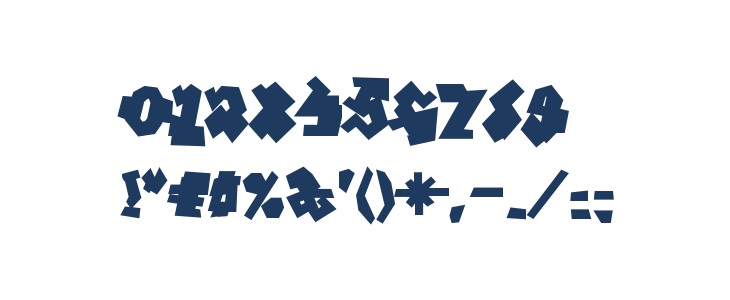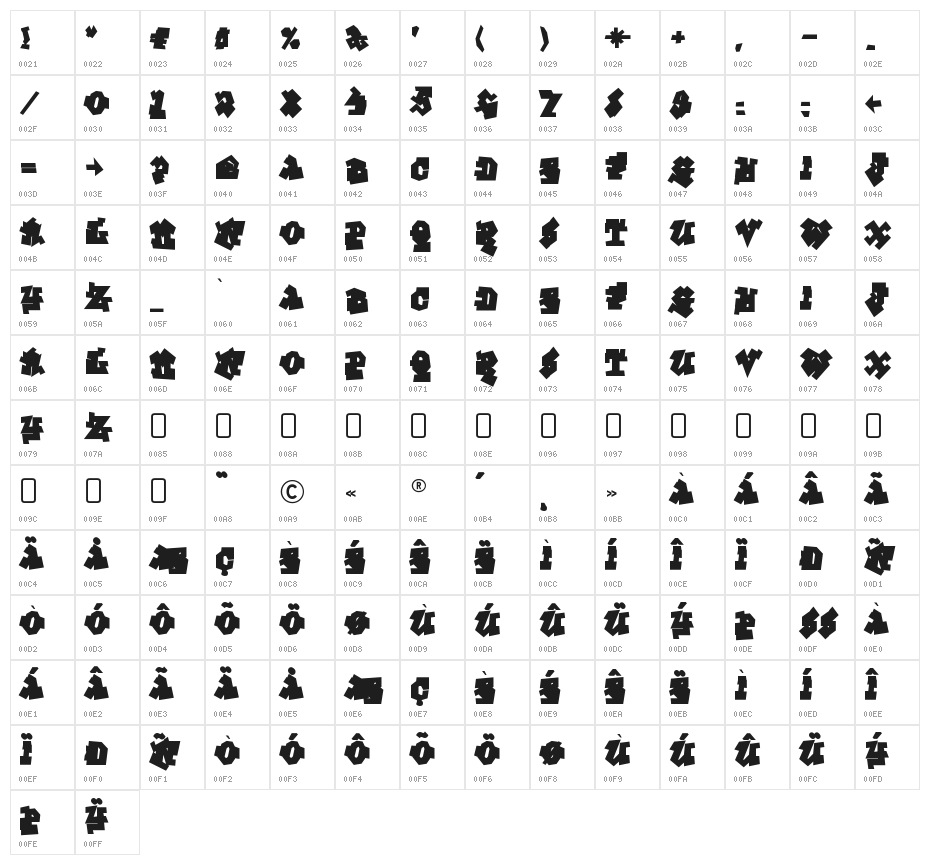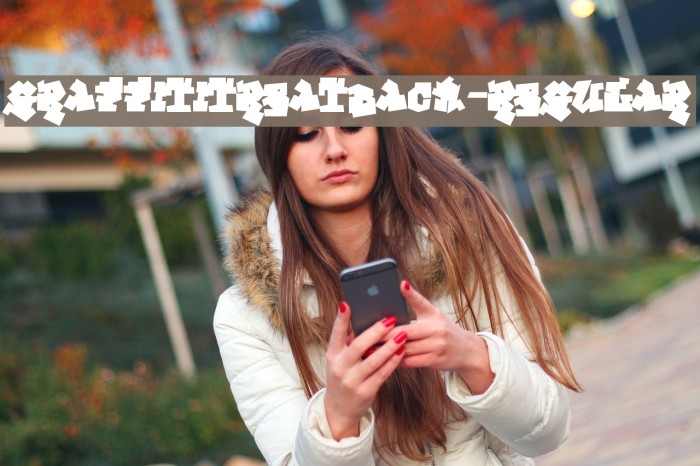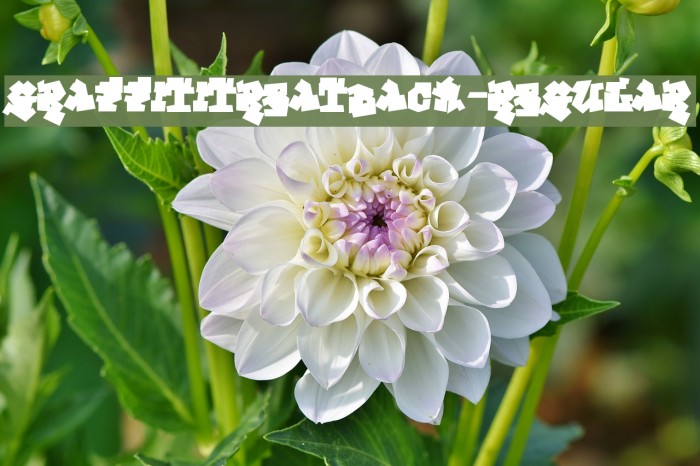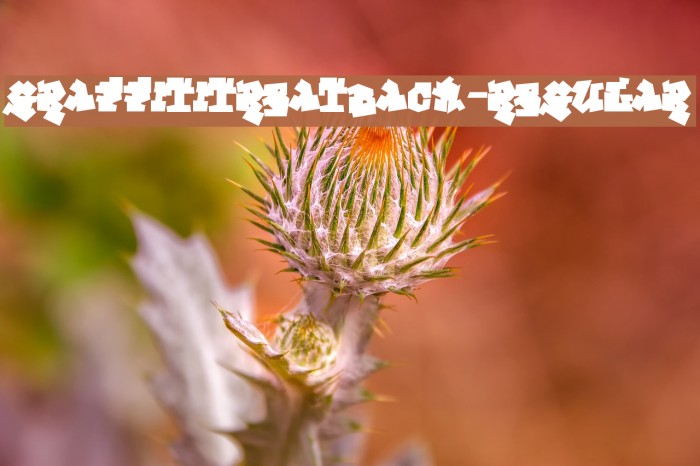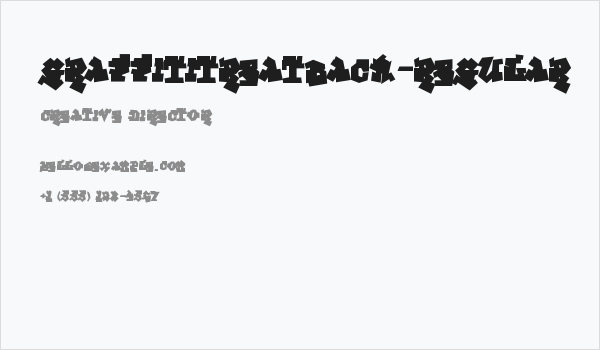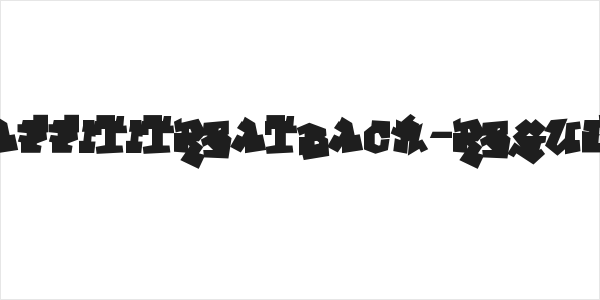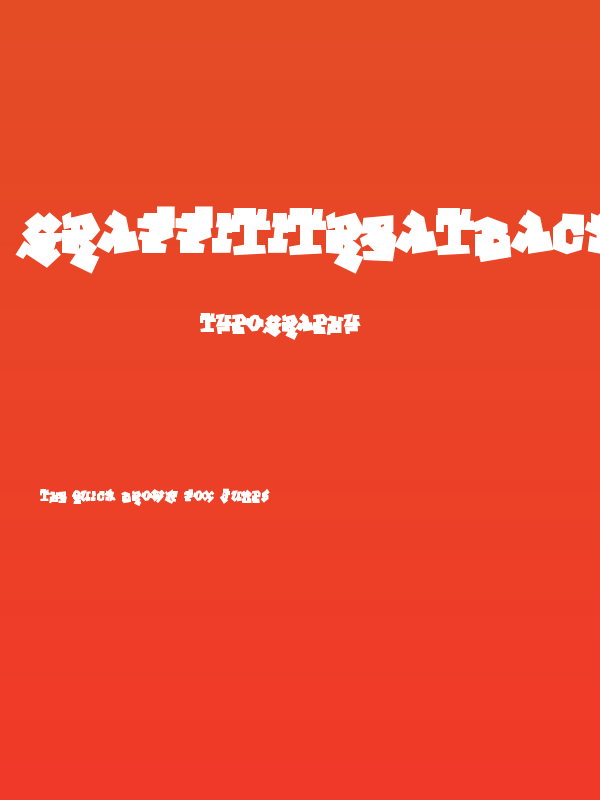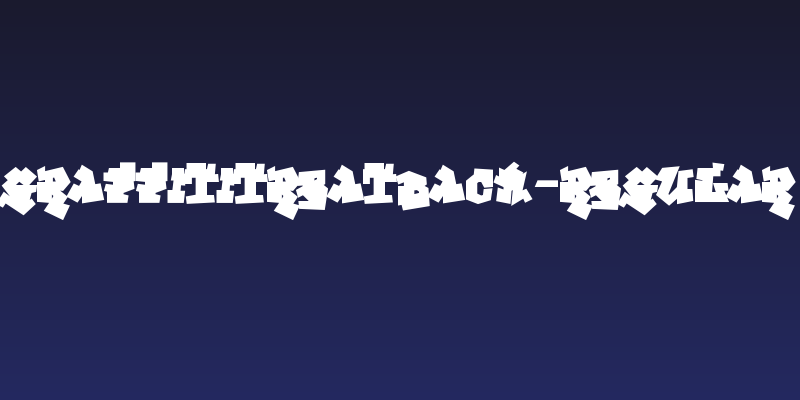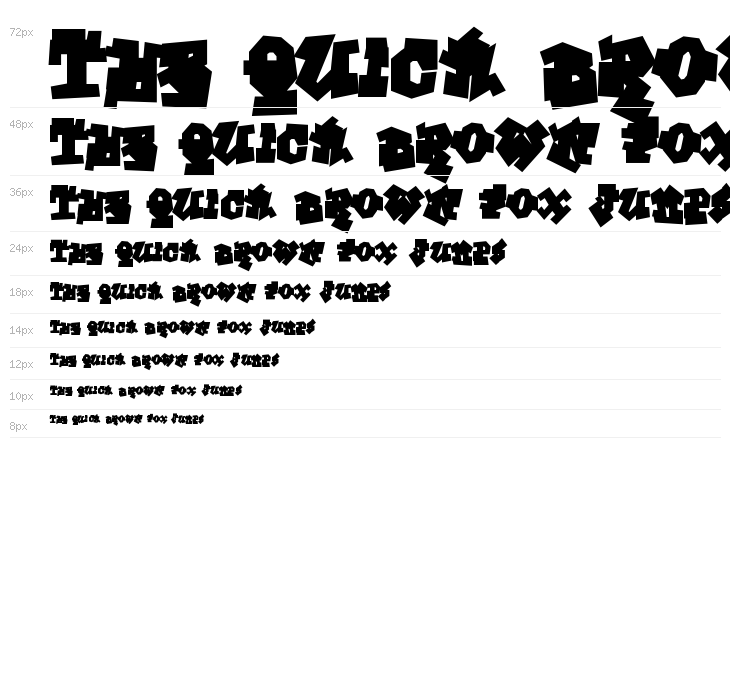
GraffitiTreatBack-Regular Font
GraffitiTreatBack-Regular Description
This font features a bold, graffiti-inspired style with a highly angular and geometric design. Each character is crafted with sharp edges and irregular shapes, giving it a dynamic and rebellious feel. The uppercase and lowercase letters maintain a consistent aesthetic, with a strong emphasis on individuality and urban culture. The numbers and special characters follow the same design principles, ensuring a cohesive look across all elements. This font is perfect for projects that aim to capture the essence of street art and urban expression.
| Overall Style | Urban, Rebellious, Dynamic |
| Proposed Projects | Ideal for street art projects, urban-themed posters, edgy branding, and music album covers. |